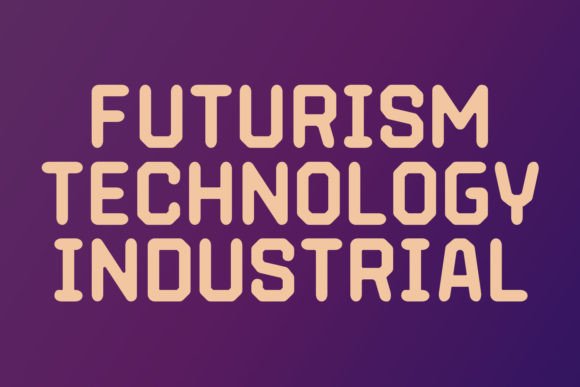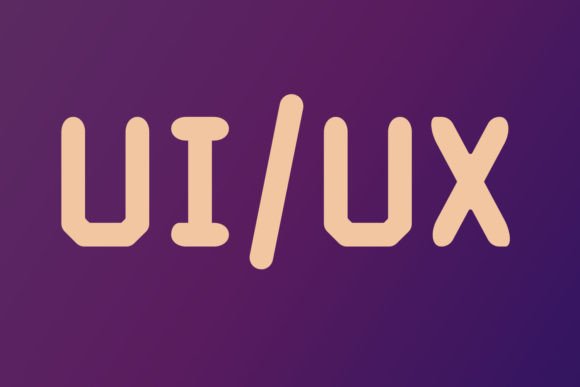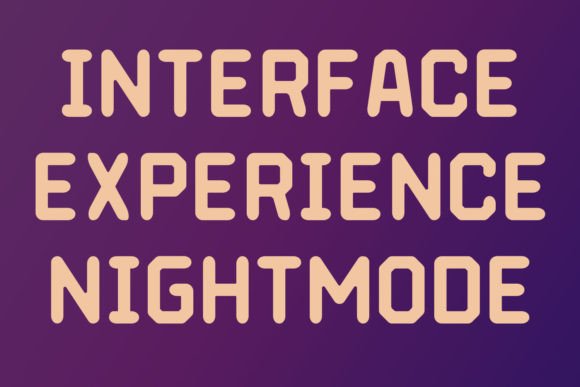
Introduction to Kartoz Font
As designers, we’ve all had that moment when a font suddenly sparks an idea and transports us to a world of endless creative possibilities. For me, that moment came when I stumbled upon the Kartoz Font – a stunning and modern display font that exudes power and elegance. Its bold lines and unique shapes are the perfect catalyst for any creative project that demands attention.
Whether you’re working on a luxury branding project, an editorial design piece, or product packaging that needs to make a lasting impression, the Kartoz Font is an invaluable design resource. With its high-quality design, this font is perfect for designers who want to elevate their work and make a statement. Plus, with a transparent background option, you can easily integrate it into your design without any distractions.
Key Features of Kartoz Font
- Unique, creative design ideal for artistic projects and creative endeavors.
- Transparent background, allowing for easy customization and integration into various designs.
- High-quality font, suitable for use in a variety of design contexts, including digital art and print materials.
Honest Review: Kartoz Font
I recently stumbled upon the Kartoz Font and I’m excited to share my thoughts on this design resource. As a designer, I appreciate high-quality fonts that can elevate a creative project and add a professional touch.
What works well: ✨ The Kartoz Font is available for free download, making it a fantastic addition to any designer’s library. The font is also incredibly versatile, with a unique blend of modern and vintage elements that can be used in a variety of contexts. I particularly appreciate the transparent background, which allows for seamless integration with any design element.
What doesn’t work well: ⚠️ While the Kartoz Font is a great addition to any design library, it may not be suitable for all projects. The font’s unique style may not be to everyone’s taste, and some designers may find it too unconventional for certain clients or industries.
Overall, I’m impressed with the Kartoz Font and would definitely recommend it to designers looking for a high-quality, free download. Just be sure to consider your project’s specific needs and audience before using this font.
- Unique, versatile design
Kartoz Font
Kartoz Font is a free download design resource ideal for creative projects that require a high-quality font. With a transparent background, this font is perfect for adding a touch of elegance to your designs.
Tips for Getting the Most Out of Kartoz Font
For the best results, use Kartoz Font in conjunction with a high-quality image or background to create a visually appealing design. Experiment with different font sizes and styles to add depth and interest to your design.
Kartoz Font is ideal for a variety of creative projects, including wedding invitations, business cards, and social media graphics. Its transparent background makes it perfect for adding text overlays to images or videos.